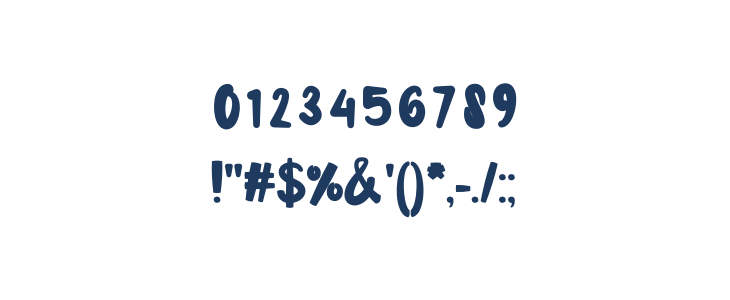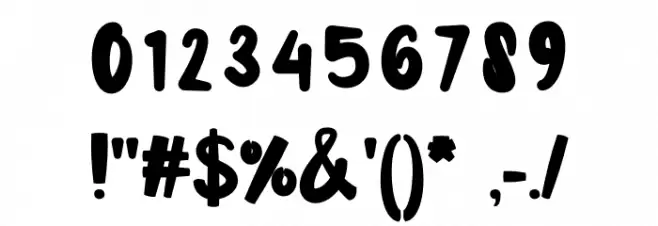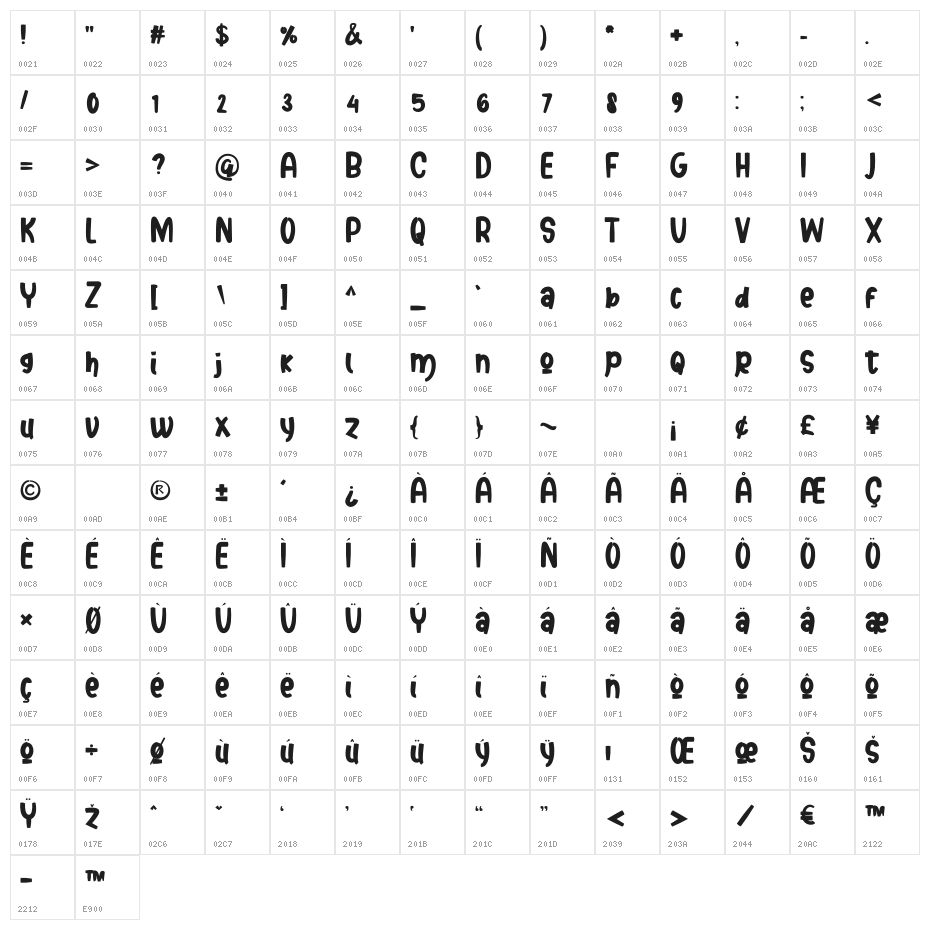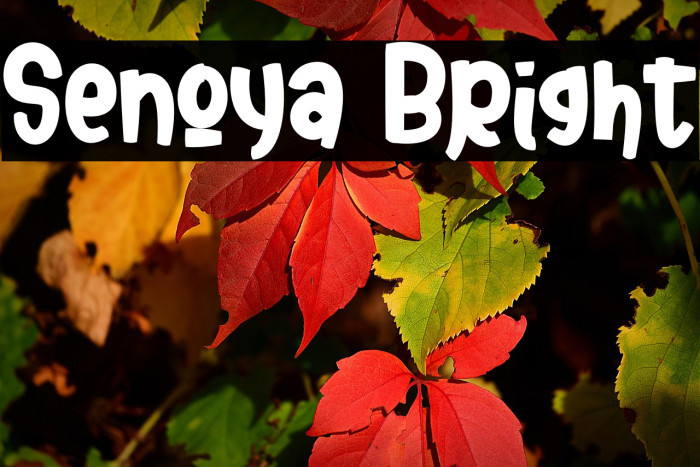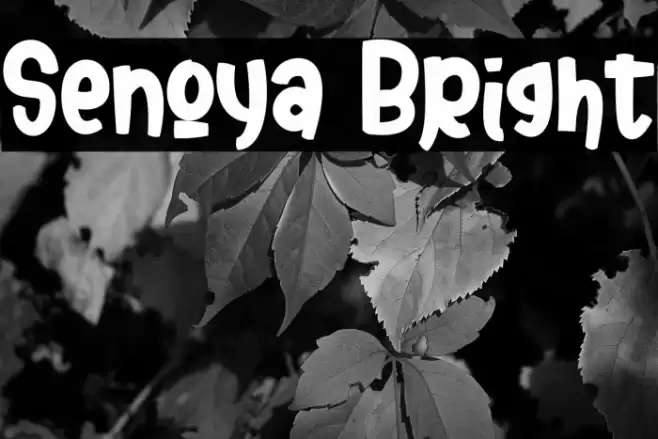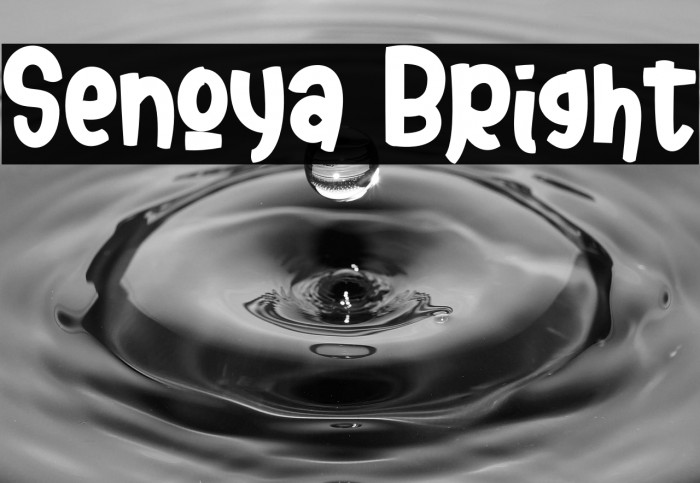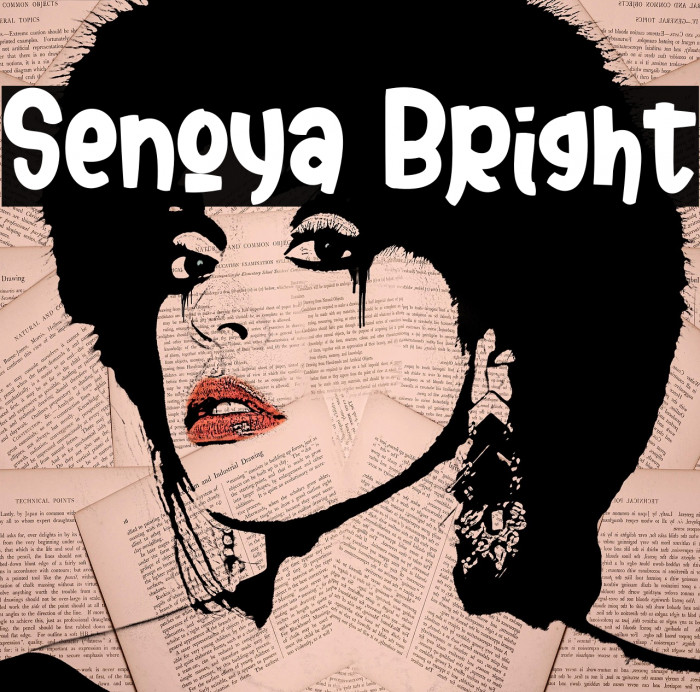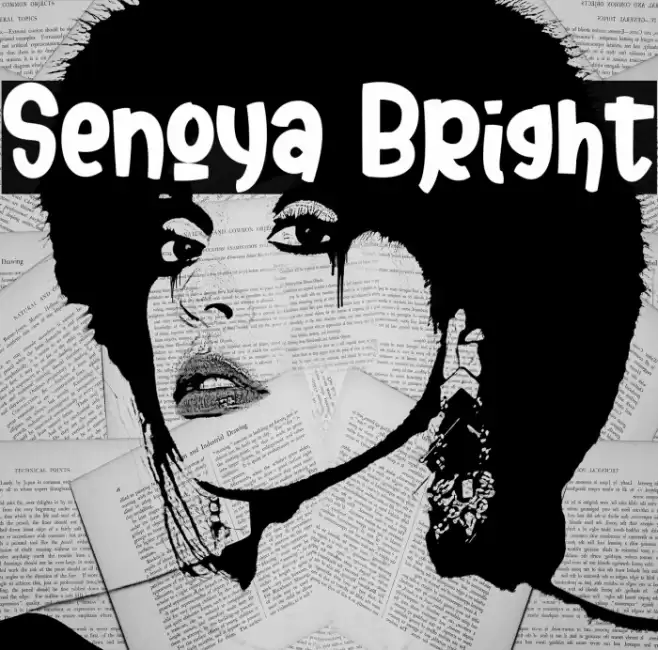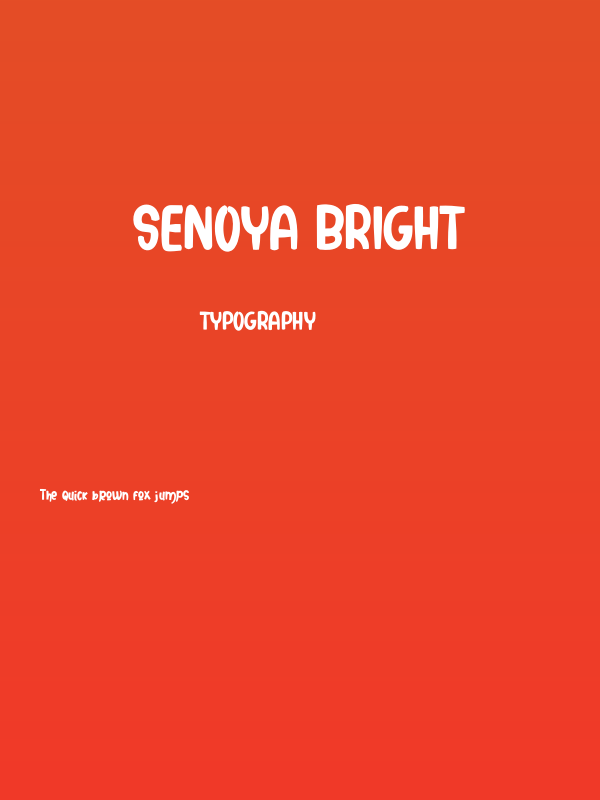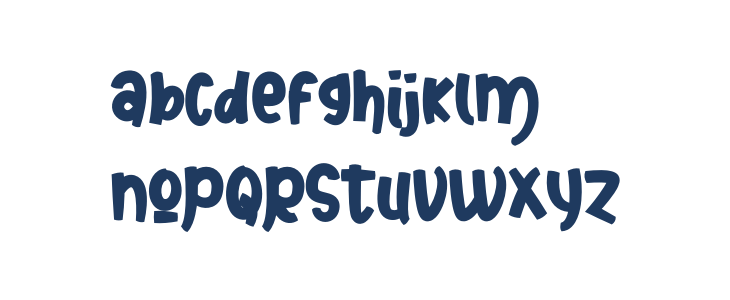
Senoya Bright Font
Senoya Bright Description
This font features a playful and bold style with rounded edges and a hand-drawn appearance. The characters are slightly irregular, adding a whimsical and friendly feel. The uppercase and lowercase letters maintain a consistent thickness, creating a cohesive look. Numbers and special characters follow the same design principles, ensuring uniformity across all glyphs. This font's unique style makes it stand out, perfect for projects that require a touch of creativity and fun.